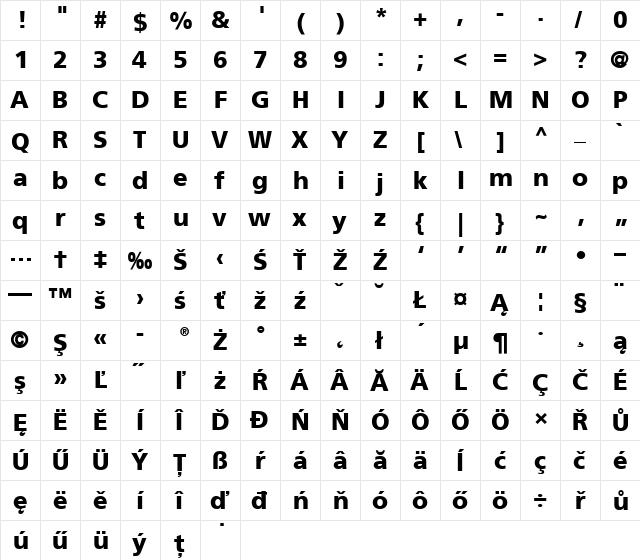
Frutiger CE 55 Roman Bold
Frutiger CE 55 Roman Bold Font Preview
Frutiger CE 55 Roman Bold
Design Context for Frutiger CE 55 Roman Typeface
Frutiger CE 55 Roman is a composed and adaptable typeface that performs quietly and consistently across a wide range of design contexts. Its bold stroke weight gives it real presence on the page.
Pro Tip: Pair Frutiger CE 55 Roman with a font of contrasting weight or personality to build a more expressive typographic hierarchy.